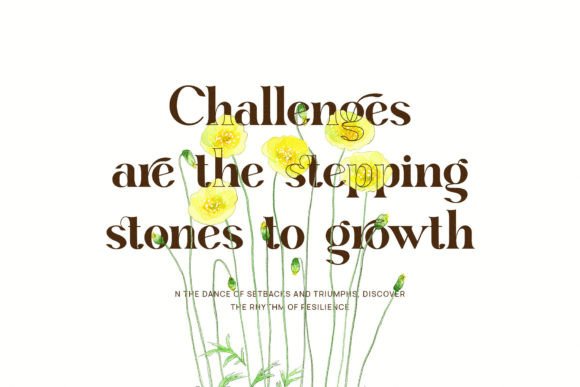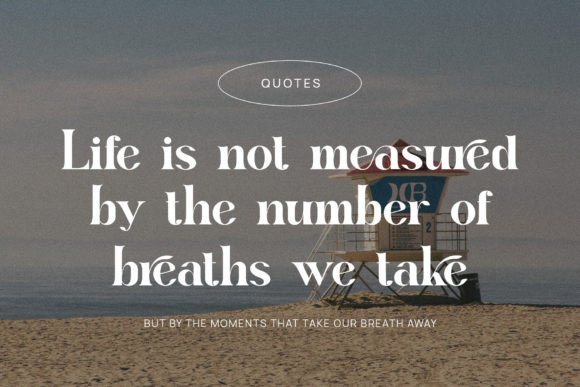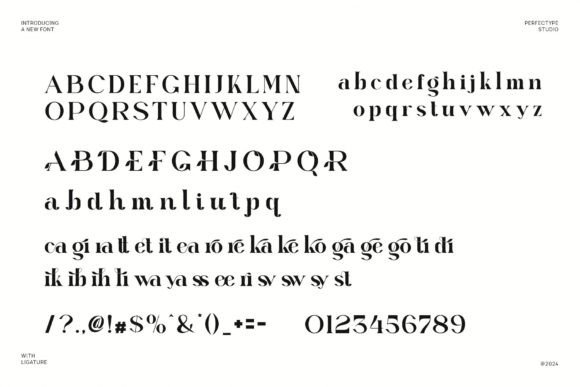
Cratiss Font: Elevate Your Designs with Elegance and Sophistication
In the world of typography, a well-crafted font can make all the difference in elevating your designs to the next level. For designers and crafters seeking a typeface that exudes elegance, sophistication, and modernity, look no further than Cratiss Font. This stunning serif typeface seamlessly blends classic charm with contemporary style, making it an ideal choice for a wide range of design projects.
Unparalleled Versatility
One of the standout features of Cratiss Font is its incredible versatility. Whether you’re working on branding projects, logos, wedding designs, social media posts, advertisements, product packaging, product designs, labels, photography, watermarks, invitations, stationery, or any other creative endeavor, this font is perfectly suited to meet your needs. Its elegant serif design and modern aesthetic ensure that your designs will stand out from the crowd, capturing the attention of your audience and leaving a lasting impression.
Designed with Readability in Mind
Cratiss Font has been carefully crafted with a high level of readability, making it an excellent choice for both digital and print applications. The clear, flowing lines and carefully proportioned letterforms ensure that your text will be easy to read, even at smaller sizes. This is particularly important for designers and crafters who need to communicate complex information or showcase their products in a clear and concise manner.
PUA Encoding: Unlock a World of Creative Possibilities
One of the most exciting features of Cratiss Font is its PUA (Private Use Area) encoding. This means that you can access a vast array of glyphs and ligatures with ease, giving you the creative freedom to experiment with different typographic styles and effects. Whether you’re looking to add a touch of whimsy to your designs or create a more dramatic, eye-catching effect, PUA encoding makes it easy to unlock the full potential of Cratiss Font.
Elegance and Sophistication for Any Project
So, what makes Cratiss Font so special? Here are just a few reasons why designers and crafters are falling in love with this stunning typeface:
- Elegant serif design: Cratiss Font boasts a classic serif design that exudes elegance and sophistication.
- Modern aesthetic: The font’s modern style ensures that your designs will look fresh and contemporary.
- High readability: Cratiss Font has been carefully crafted to ensure that your text will be easy to read, even at smaller sizes.
- PUA encoding: Unlock a world of creative possibilities with PUA encoding, giving you access to a vast array of glyphs and ligatures.
Real-World Applications for Designers and Crafters
So, how can you use Cratiss Font in your designs? Here are just a few examples:
- Branding projects: Create a lasting impression with Cratiss Font, perfect for logos, business cards, and other branding materials.
- Wedding designs: Add a touch of elegance to your wedding designs, including invitations, stationery, and more.
- Social media posts: Stand out on social media with Cratiss Font, perfect for creating eye-catching posts and graphics.
- Product packaging: Elevate your product packaging with Cratiss Font, adding a touch of sophistication to your products.
In conclusion, Cratiss Font is a game-changing typeface that offers designers and crafters the perfect blend of elegance, sophistication, and modernity. With its unparalleled versatility, high readability, and PUA encoding, this font is sure to become a staple in your design toolkit. Whether you’re working on branding projects, wedding designs, social media posts, or any other creative endeavor, Cratiss Font is the perfect choice for elevating your designs to the next level.